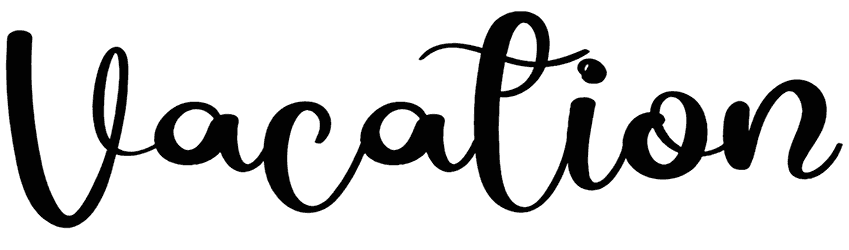
Vacation Font
We suggest you don’t miss the Vacation font and download it now because the playful characters of this handwriting font will help you to have a happy and attractive design for your project. This calligraphy font with the combination of small and large characters, which is a little illegible, can be wonderful in postcards and birthday invitation cards to attract many audiences.
Vacation is a fashionable script font. It is neatly crafted and highly detailed. Whatever the topic, Vacation will be a wonderful asset to your font library, as it has the potential to enhance any creation.